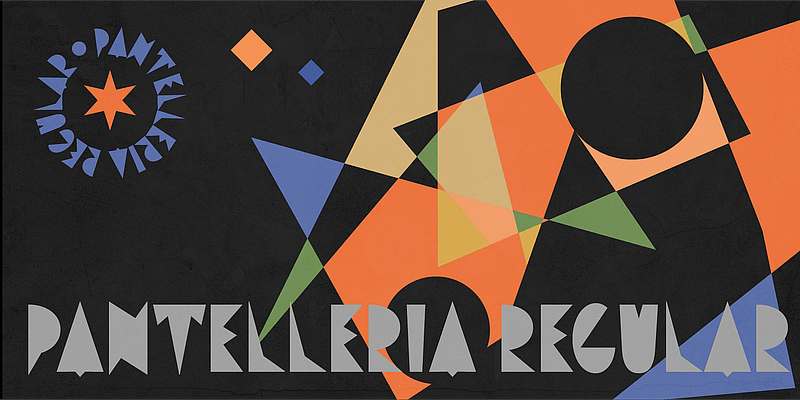
Pantelleria shows off its strong character and burns with passion. Its explosive nature lends Pantelleria an overall sharp and pointed look, complemented by fully round shapes and cut-out counters in pretty much all angles from 0 to 360. Originally released in the 1930s as Etna by Xilografia Meneghello & Belluzzo, a wood type manufacturer based in Porto Legnago near Verona, Italy, the alphabet was merely accompanied by a set of figures. Pantelleria has now grown into a typeface equipped with all necessary punctuation, accents covering all Latin-based alphabets, stylistic alternates including a narrower R, a less-spreading S, and U. If you have something to say, you will get all the attention with Pantelleria.